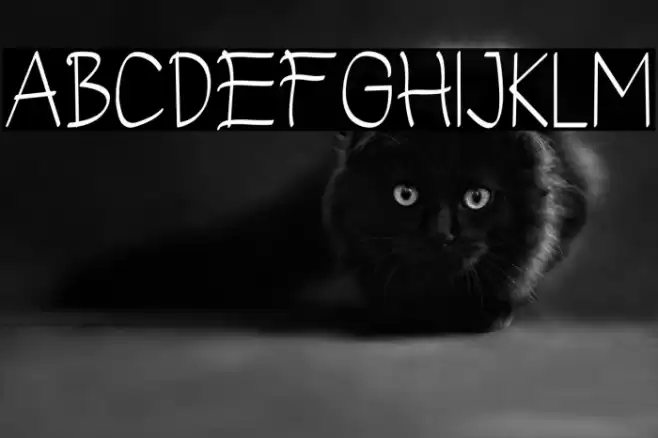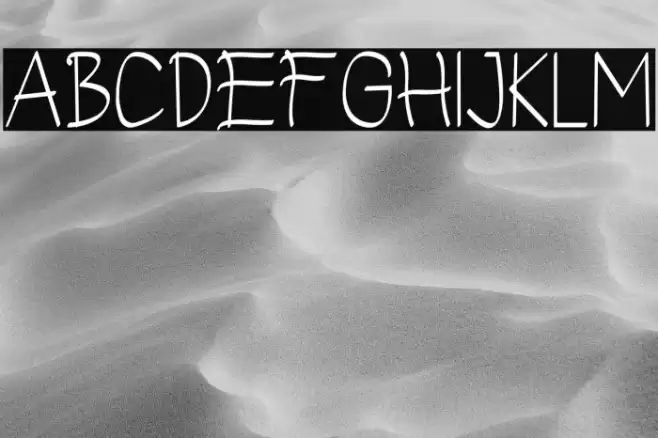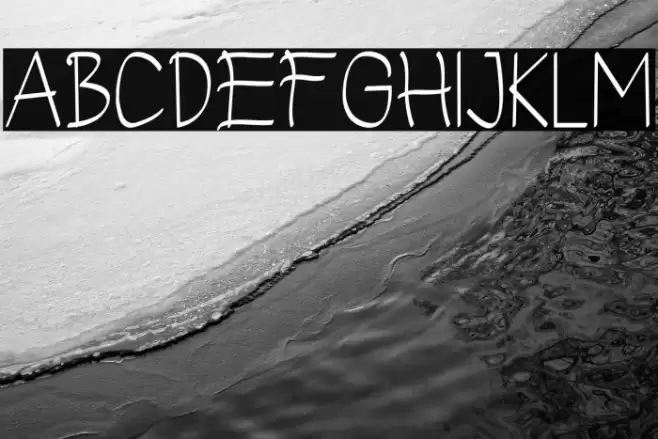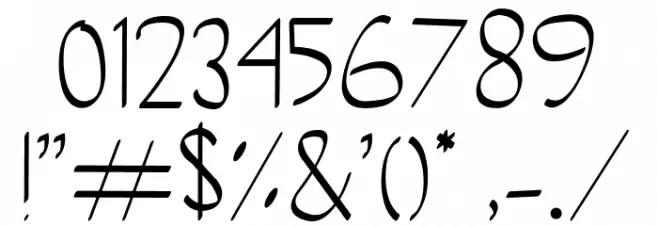
Vickydian Font
Vickydian Description
This font features a playful and whimsical design with a handwritten style. The characters are slightly irregular, giving it a casual and informal appearance. The uppercase letters are tall and narrow, while the lowercase letters maintain a consistent height with rounded edges. The numerals are uniquely styled, adding to the font's charm. Special characters are well-integrated, maintaining the overall playful aesthetic. This font is ideal for projects that require a personal touch, such as invitations, greeting cards, or children's books.
A playful, handwritten font with a whimsical and informal style from Uncategorized fonts.
- Font: Vickydian
- Proposed Projects: Ideal for invitations, greeting cards, children's books, and creative projects.
- Overall Style: Whimsical
- Use Case: Headlines, Creative projects